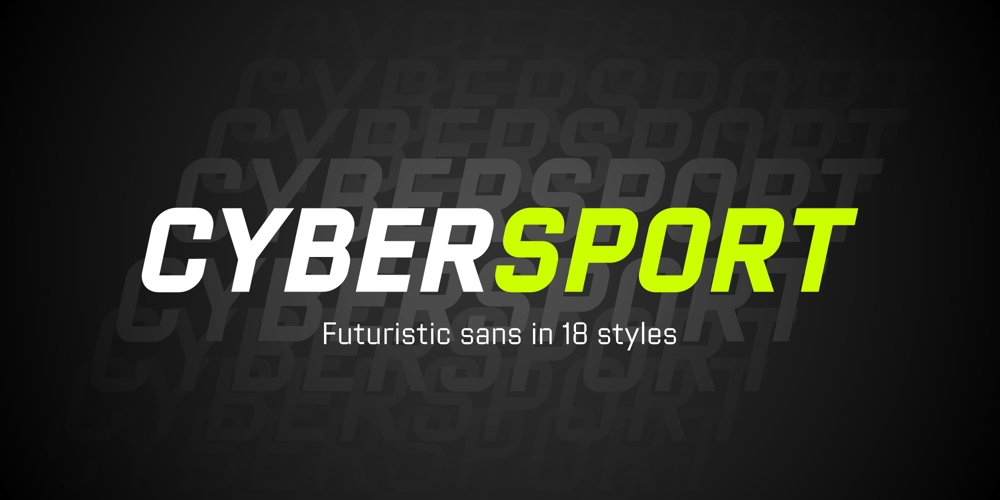
Cybersport Font Family was designed by Anton Kokoshka and published by Anton Kokoshka. Cybersport contains 18 styles and family package options. Cybersport is a modern geometric grotesque sans with contemporary aesthetics. Ideal for dynamic designs in esports, and active living, it conveys energy and motion. With 9 weights and italics, its letters feature rectangular shapes, giving a futuristic, tech-savvy look that reflects its innovation. Use Cybersport to add modern aesthetics and vibrancy to your work.